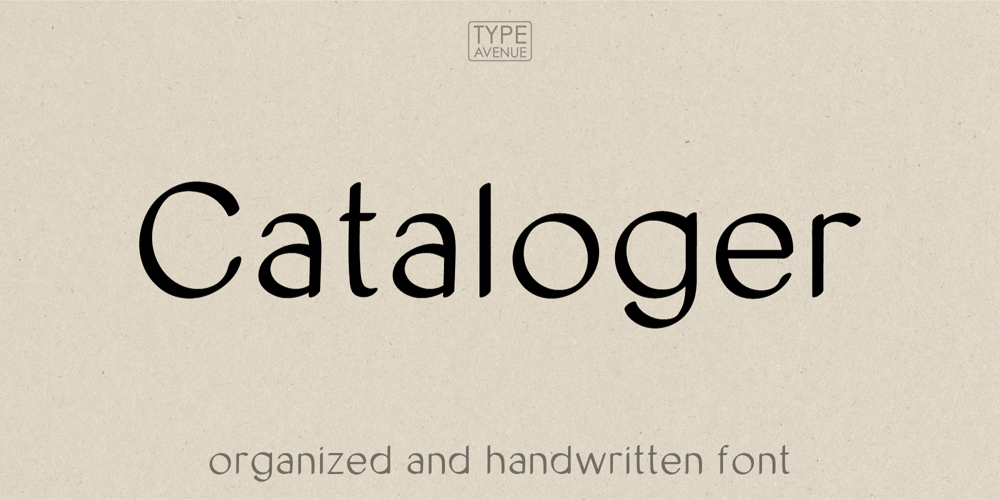
Cataloger
Cataloger font
Cataloger Font Family was designed by Jess J and published by Type Avenue. Cataloger contains 1 styles and family package options. A truly organized storage section is only complete with properly and neatly organized labels. This font is perfect for that. It is legible and professional enough to use in an office setting. It is also perfect for use in the home for example organizing a home or a pantry.